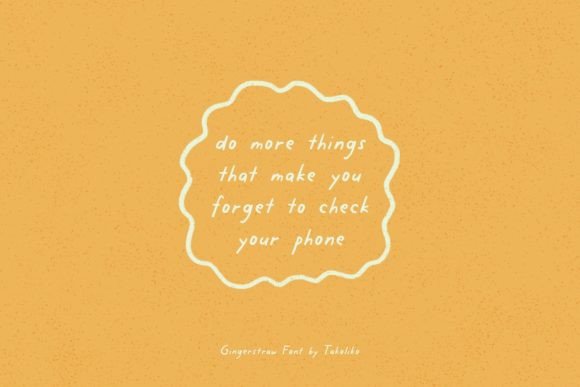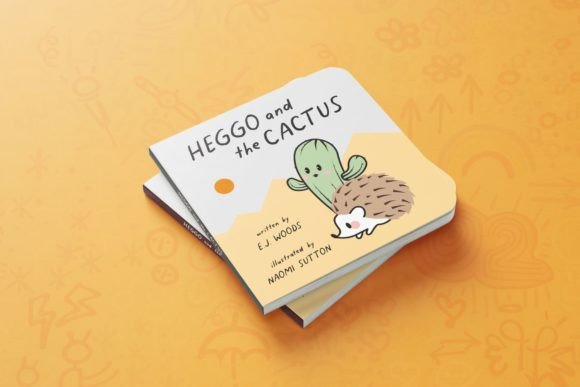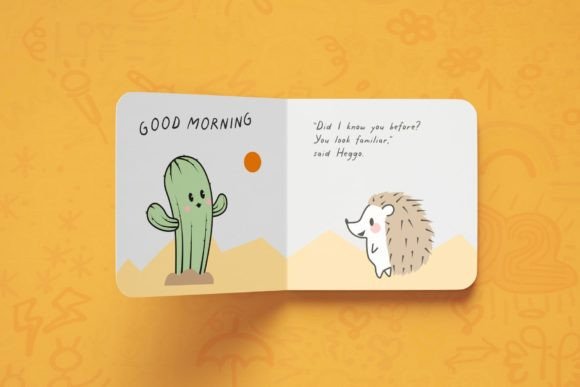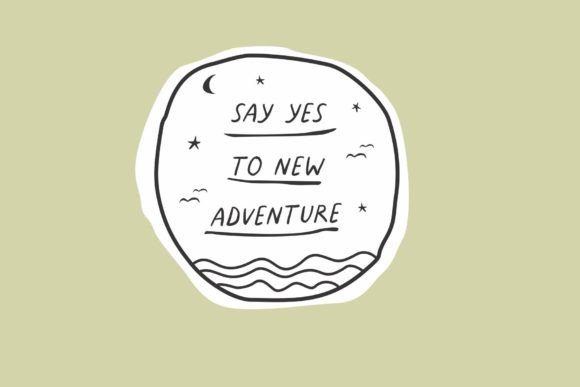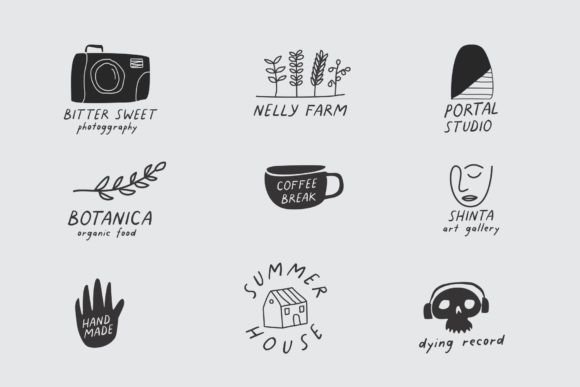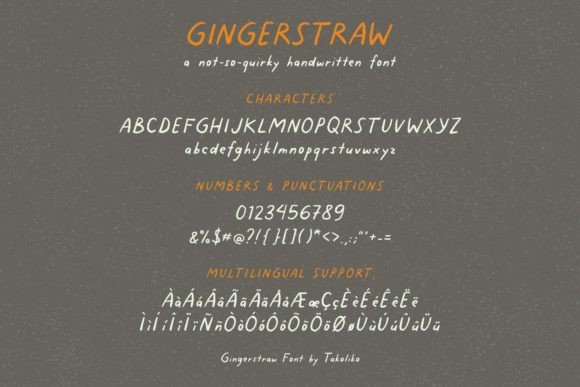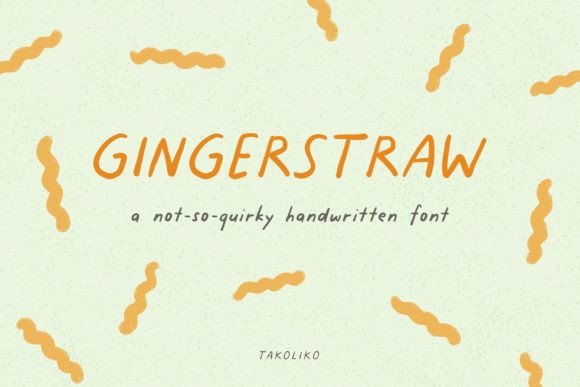
Gingerstraw Font: Elevate Your Designs with a Handmade, Warm, and Cheerful Touch
In the world of typography, fonts play a crucial role in conveying the tone and personality of a design. For designers and crafters looking to add a personal touch to their creations, the Gingerstraw font is an excellent choice. This not-so-quirky handwritten font is handmade, warm, and cheerful, making it perfect for a wide range of projects. In this article, we’ll explore the features and benefits of the Gingerstraw font and why it’s a great addition to your fonts library.
The Charm of Gingerstraw Font
Gingerstraw font is a unique blend of elegance and playfulness. Its handmade nature gives it a distinct, organic feel that sets it apart from more traditional fonts. The warm and cheerful tone of Gingerstraw makes it ideal for designs that require a friendly and approachable touch. Whether you’re working on a branding project, a craft project, or a digital design, Gingerstraw font is sure to add a touch of personality to your work.
Versatility of Gingerstraw Font
One of the standout features of the Gingerstraw font is its versatility. It’s perfect for an incredibly large set of projects, from:
• Branding and logos: Add a personal touch to your brand’s identity with Gingerstraw font.
• Crafting and DIY projects: Use Gingerstraw font to add a handmade touch to your craft projects, such as labels, cards, and invitations.
• Digital designs: Incorporate Gingerstraw font into your digital designs, such as social media graphics, blog posts, and website headers.
• Stationery and paper goods: Use Gingerstraw font to create beautiful and unique stationery, such as notebooks, journals, and greeting cards.
Why Choose Gingerstraw Font?
So, why should you choose Gingerstraw font for your designs? Here are just a few reasons:
• Unique and distinctive: Gingerstraw font has a unique and distinctive style that sets it apart from more traditional fonts.
• Handmade and organic: The handmade nature of Gingerstraw font gives it a warm and organic feel that’s perfect for designs that require a personal touch.
• Versatile: Gingerstraw font is perfect for a wide range of projects, from branding and logos to digital designs and stationery.
• Easy to read: Despite its unique style, Gingerstraw font is easy to read and understand, making it perfect for body text and headlines.
How to Use Gingerstraw Font
• Pair it with other fonts: Gingerstraw font pairs well with other fonts, such as sans-serif fonts and script fonts.
• Experiment with colors: Gingerstraw font looks great in a variety of colors, from bright and bold to soft and pastel.
• Use it for headlines and body text: Gingerstraw font is perfect for both headlines and body text, making it a versatile addition to your fonts library.